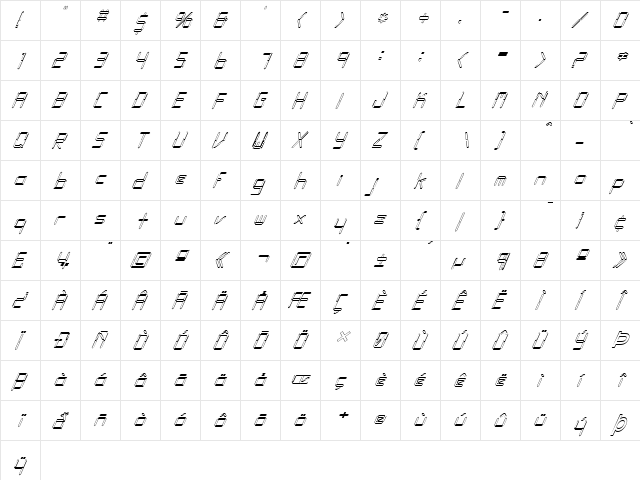
FZ DIGITAL 10 HOLLOW ITALIC Normal Font Preview
Design Context for FZ DIGITAL 10 HOLLOW ITALIC Typeface
FZ DIGITAL 10 HOLLOW ITALIC has a distinctly futuristic character, with geometric precision and clean angles that feel at home in technology, gaming, and sci-fi contexts. Its italic angle brings a sense of urgency and motion to the letterforms.